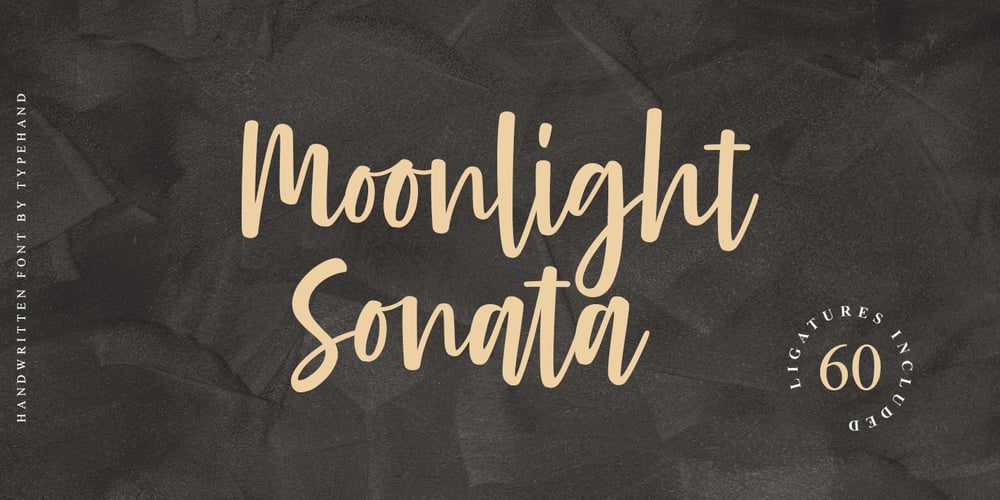
Moonlight Sonata Font Family was designed by Yanuar Adi and published by Typehand Studio. Moonlight Sonata contains 1 styles and family package options. Moonlight Sonata is a casual script font based on a manual calligraphy brush. It includes hundreds of beautiful glyphs with many OpenType features such as ligatures. This font is unique, personal, and friendly to use.Moonlight Sonata is very versatile, where you can use it for various purposes such as greeting cards, invitations, logo type, posters and various merchandise where you want more personalized look.